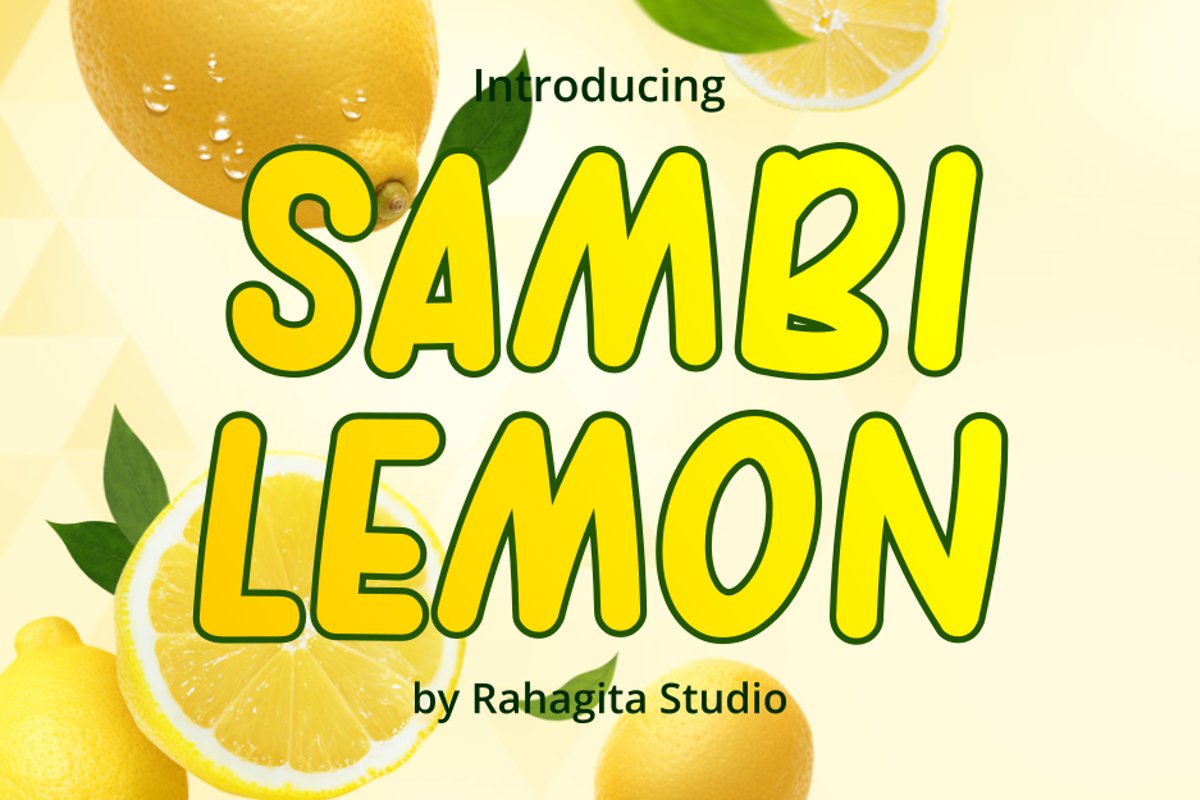
Sambi Lemon
Sambi Lemon is a cute and friendly display font. Use this gorgeous and unique all caps font to bring any DIY project to life!
Rahagita Studio